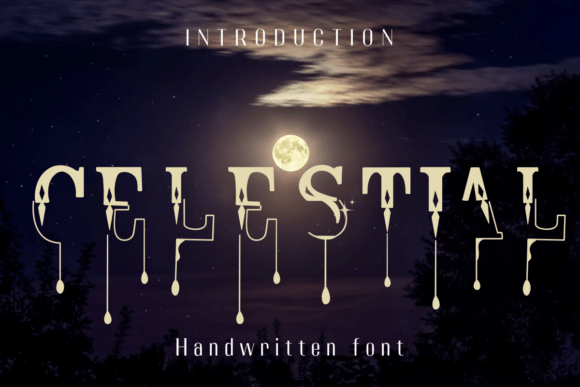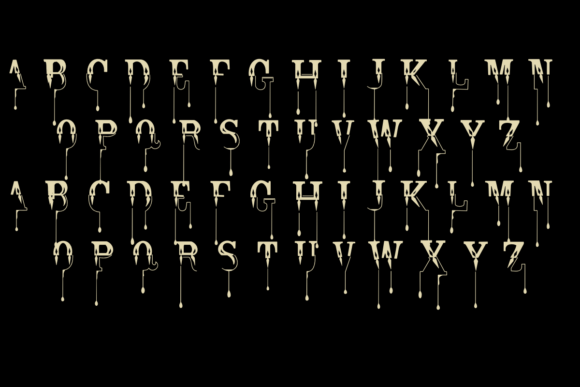
Celestial Font
Celestial is a unique decorative font that features letters with a dripping, pendulum-like design. The letters have a playful and creative look, making them perfect for eye-catching titles and artistic projects.